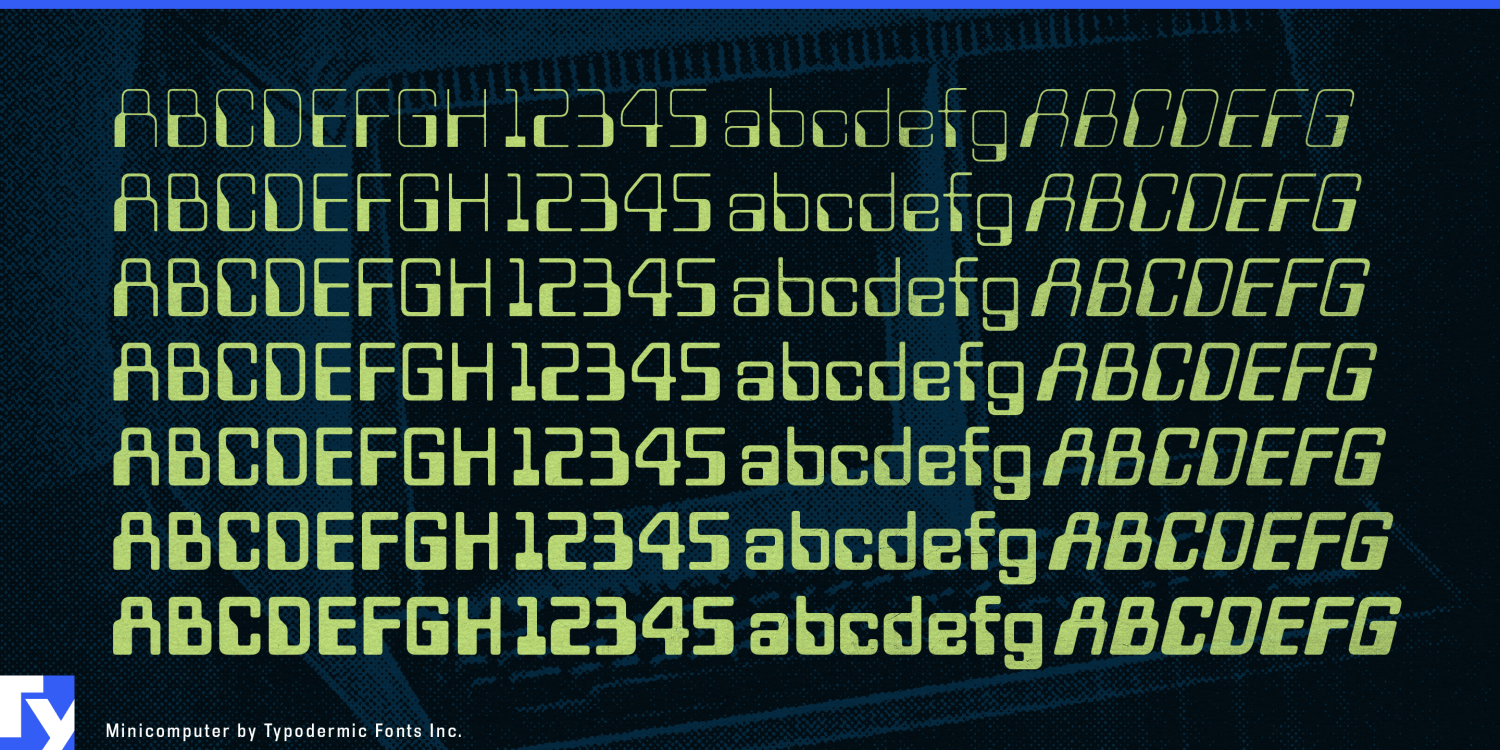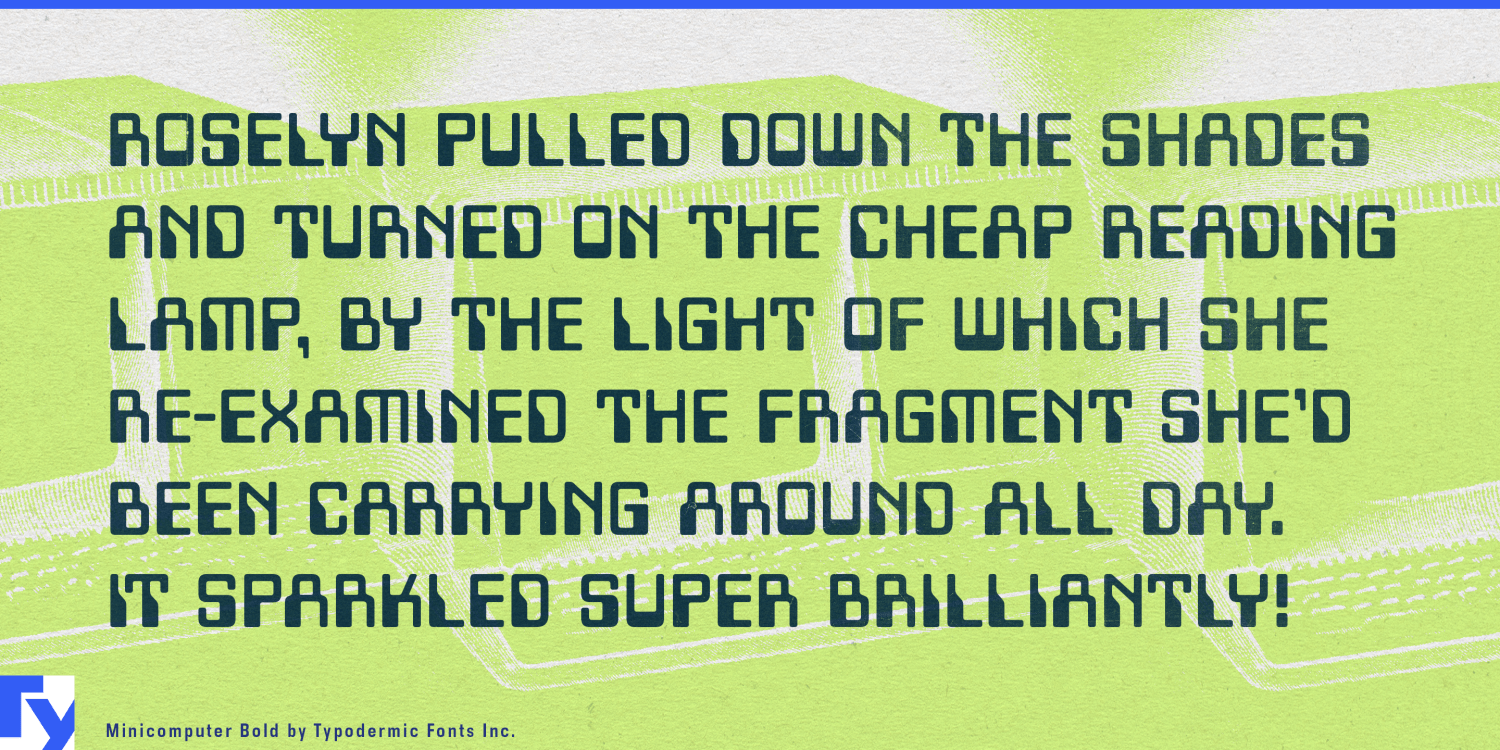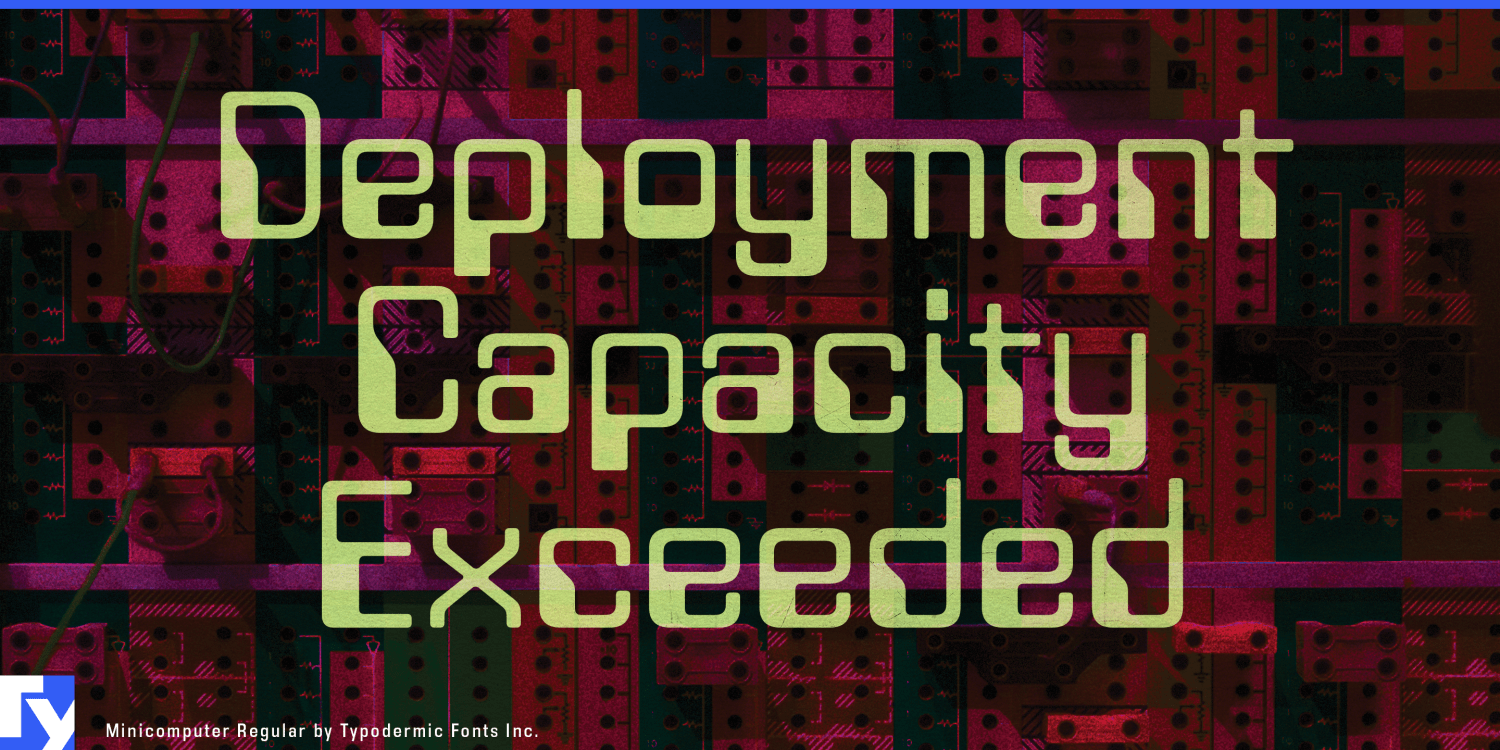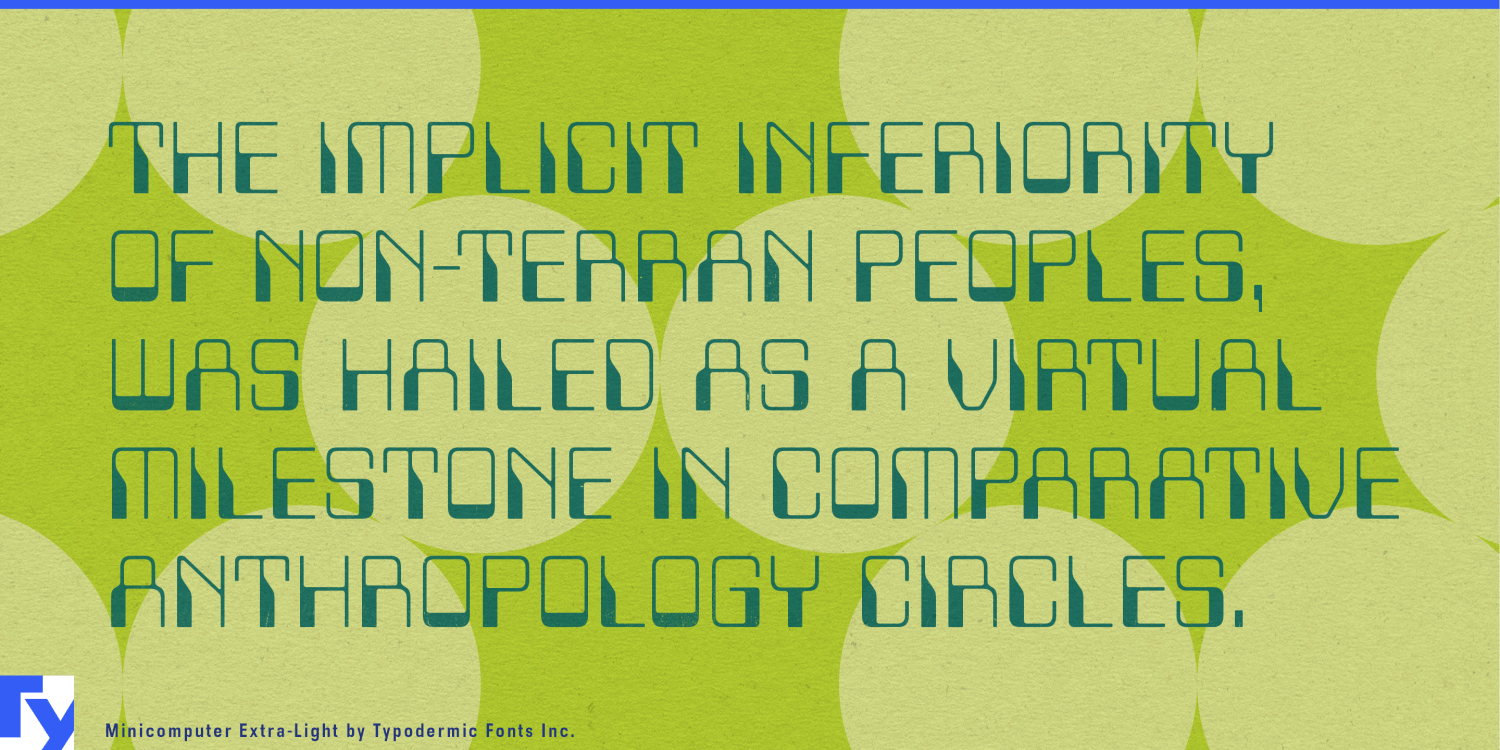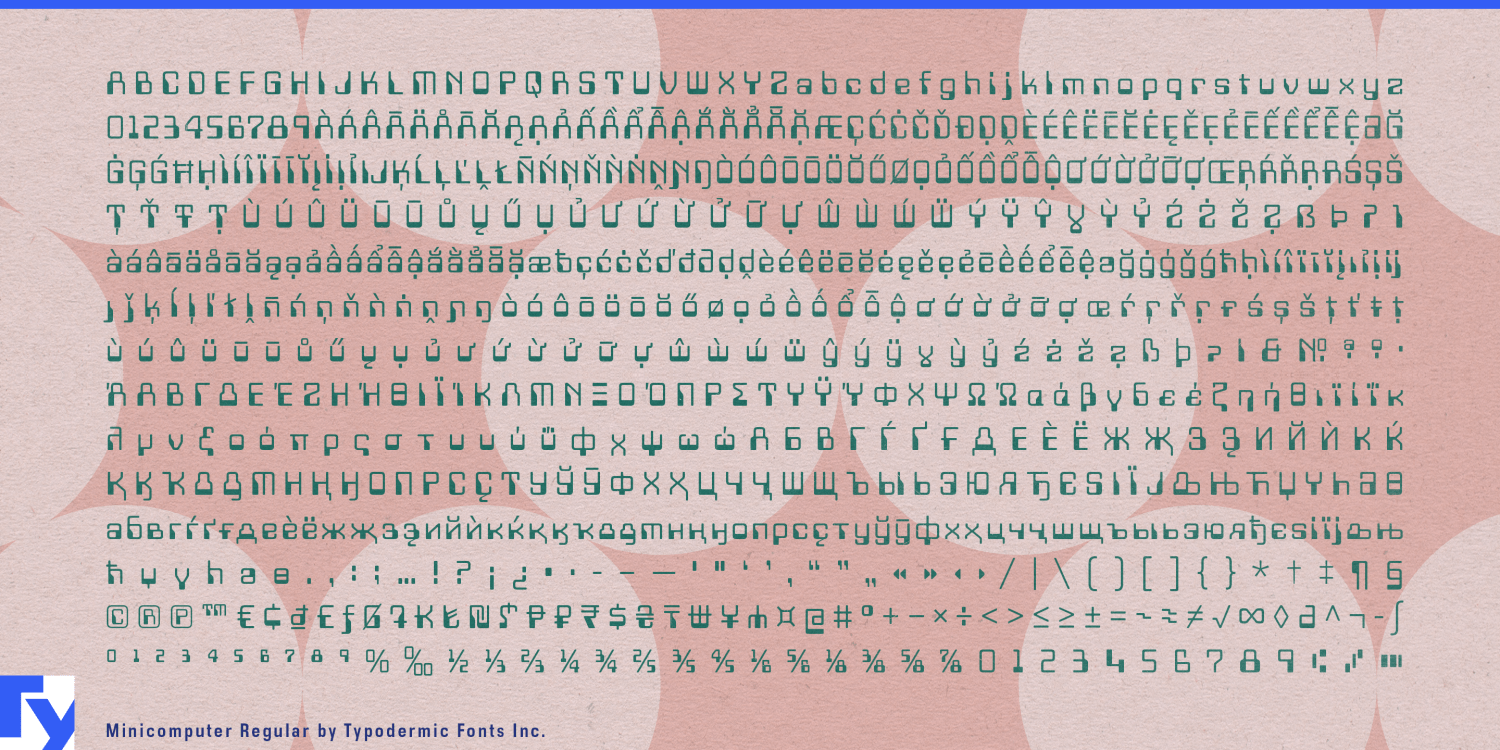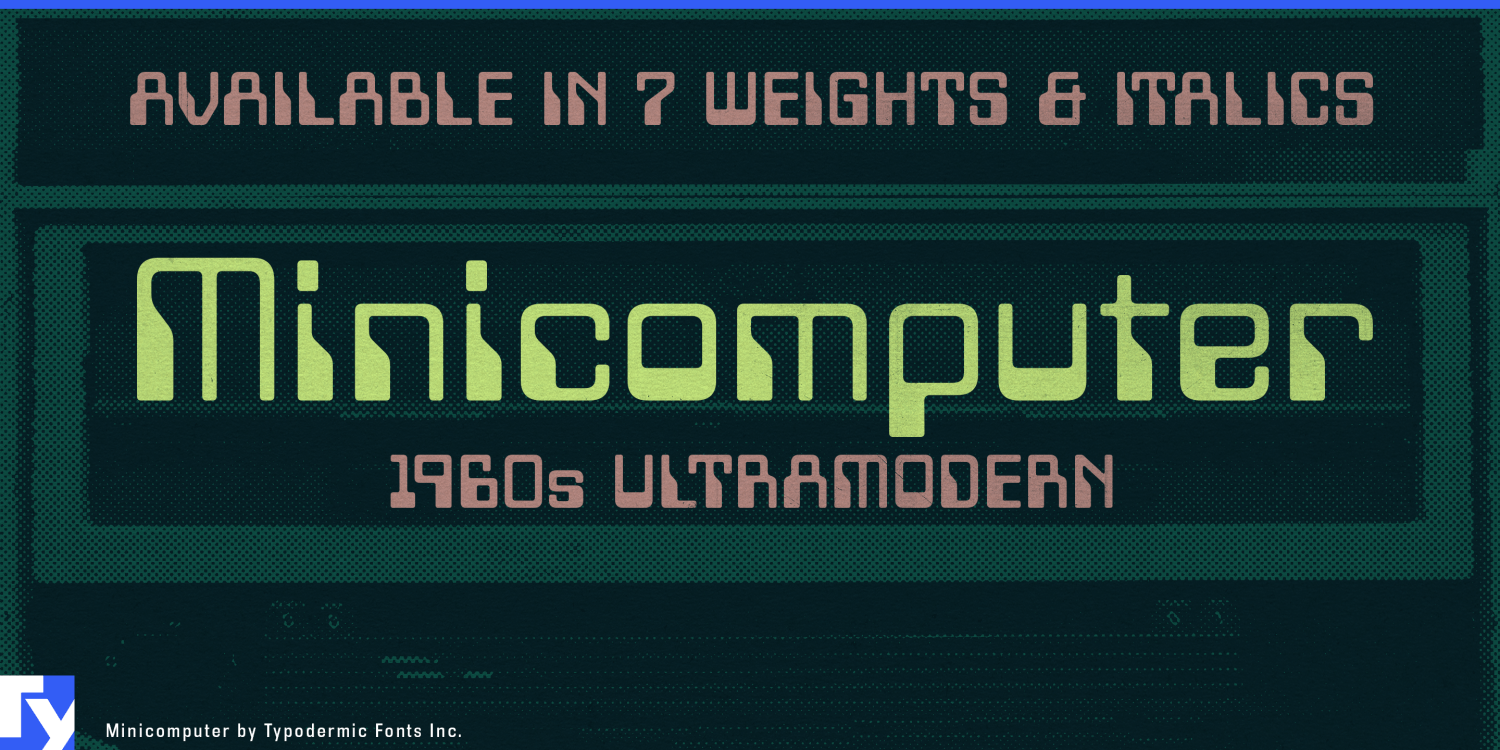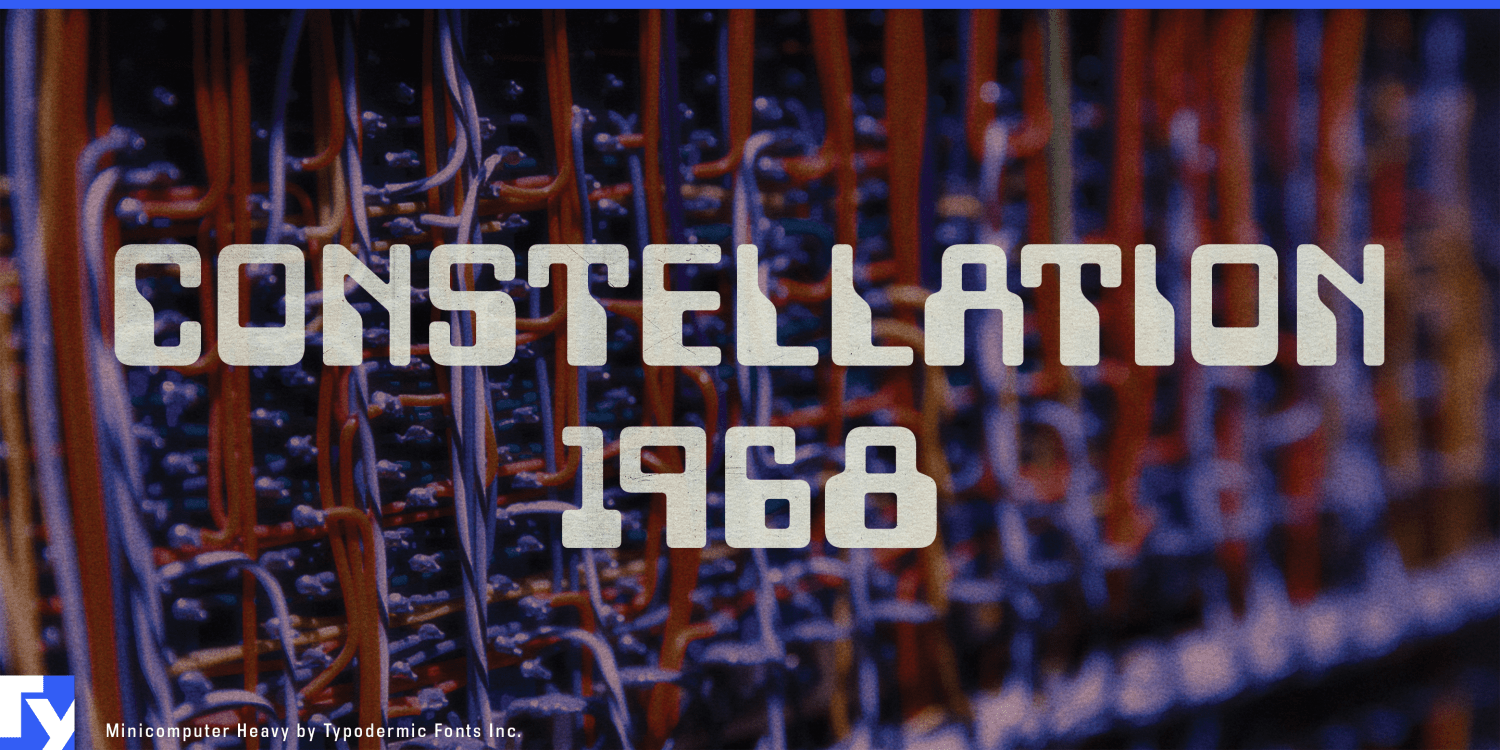
Minicomputer
About Minicomputer
Step aside, computer nerds—Minicomputer is breaking free from the binary bonds of tech nostalgia and strutting its way back to the psychedelic heart of Swinging London! This isn’t just a typeface; it’s a time machine disguised as letters,…